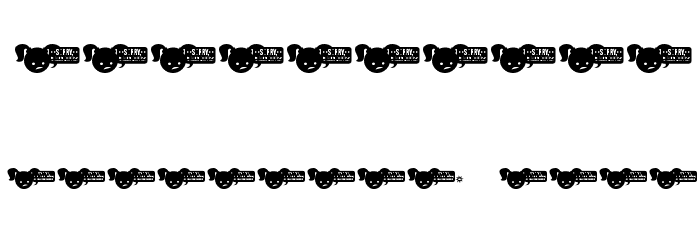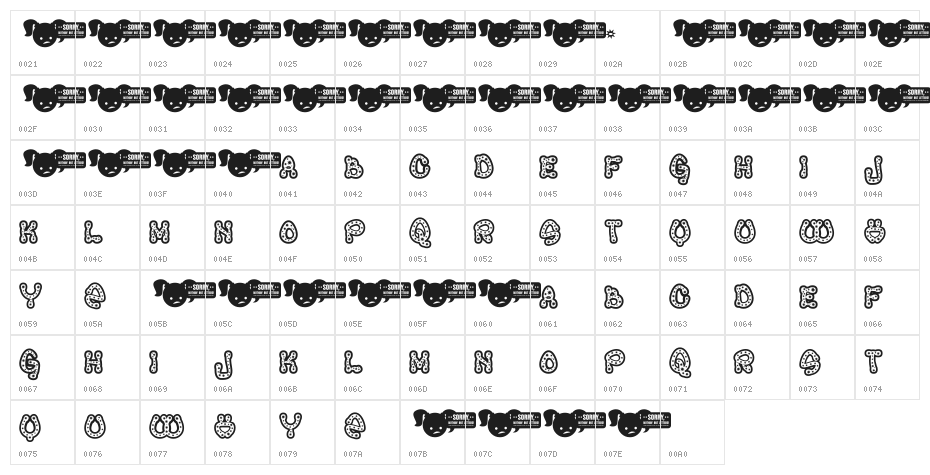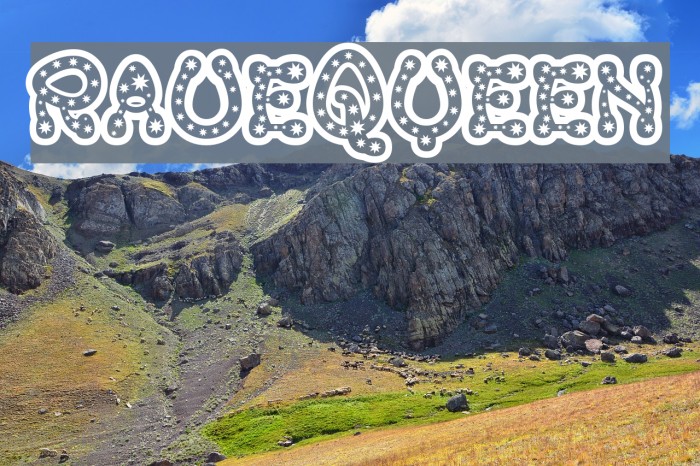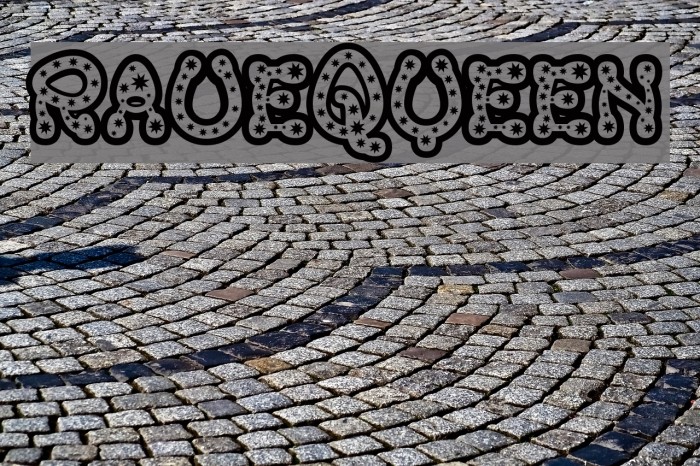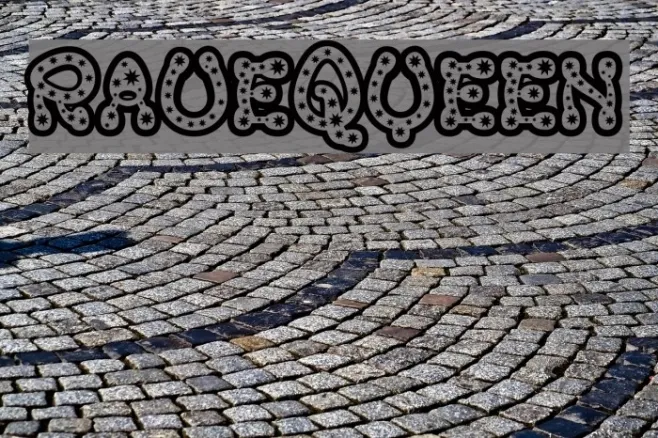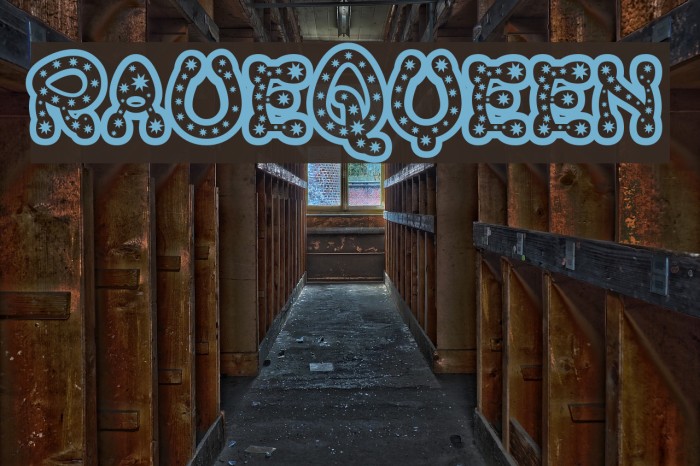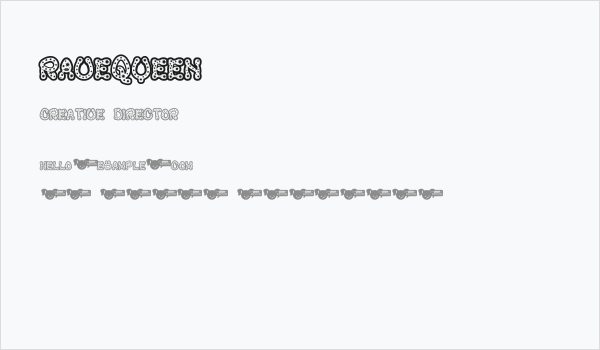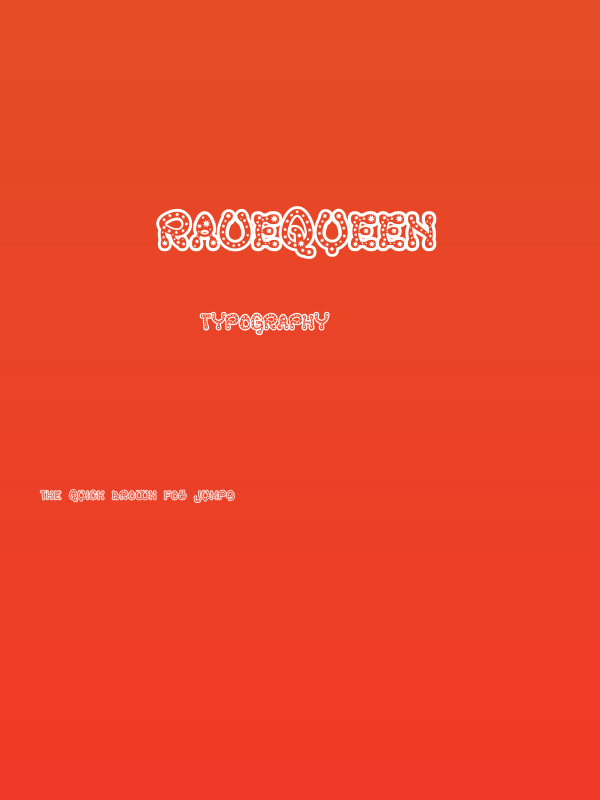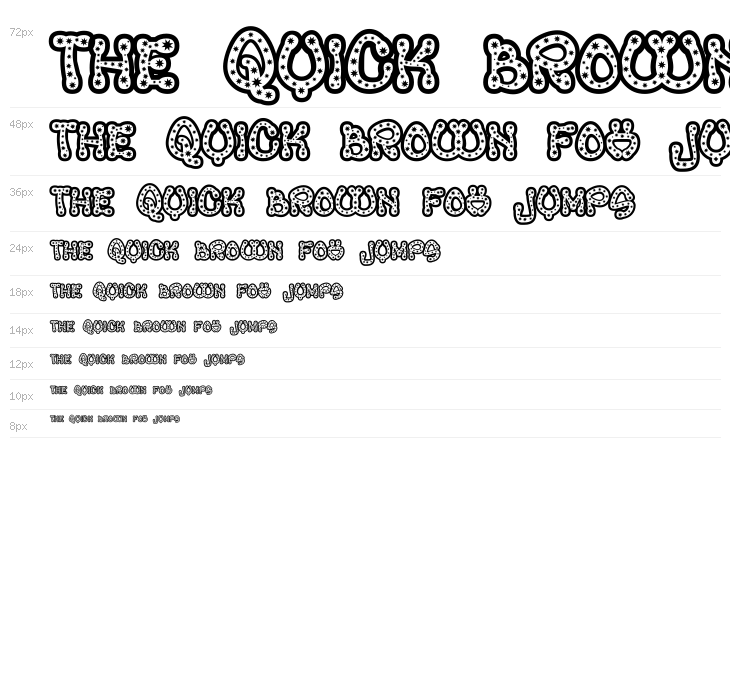
RaveQueen Font
RaveQueen Description
This playful and vibrant font features bold, rounded letters filled with star patterns, creating a lively and energetic appearance. The thick outlines enhance its visibility and make it stand out, perfect for catching attention. Each character is uniquely designed with a consistent theme of stars, adding a whimsical and fun element to the text. The font maintains a uniform weight throughout, ensuring readability while delivering a strong visual impact. Its decorative nature makes it ideal for creative projects that require a touch of excitement and flair.
| Proposed Projects | Ideal for party invitations, children's book covers, event posters, and playful branding projects. |